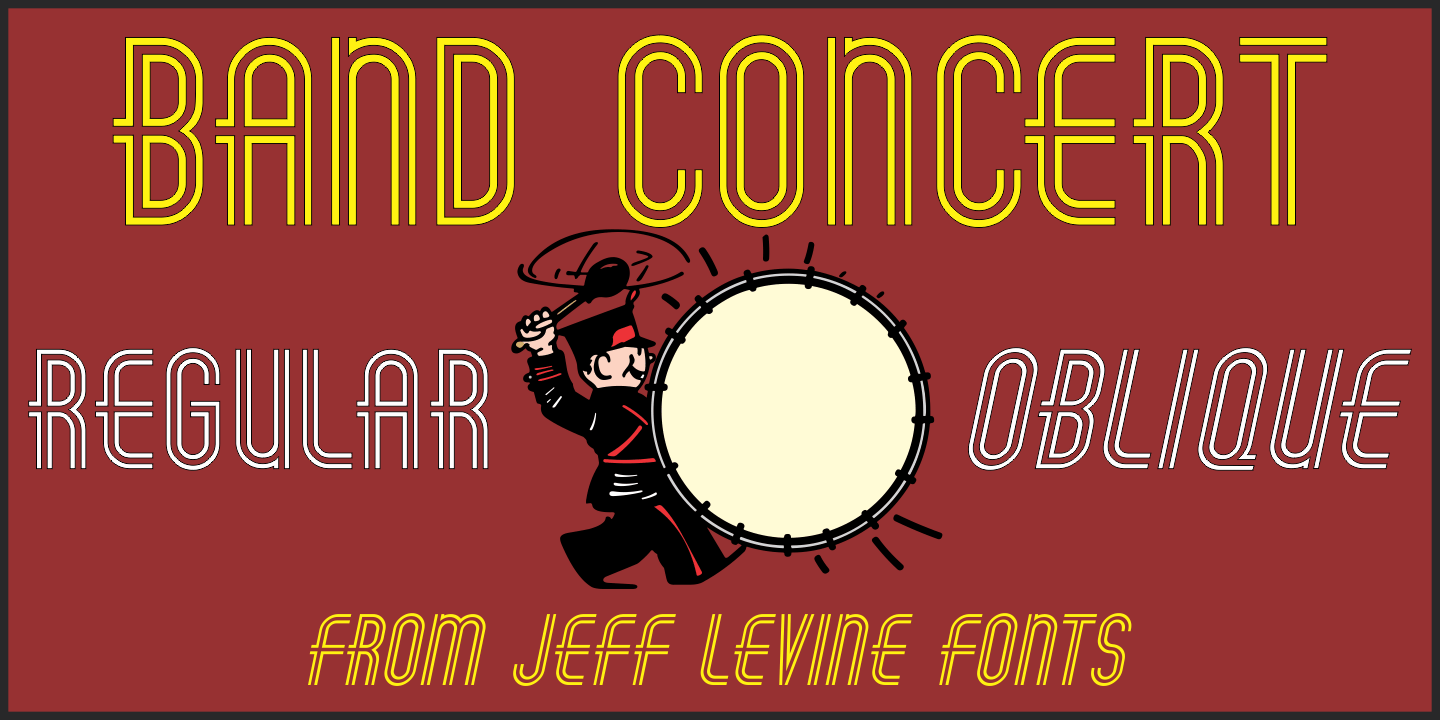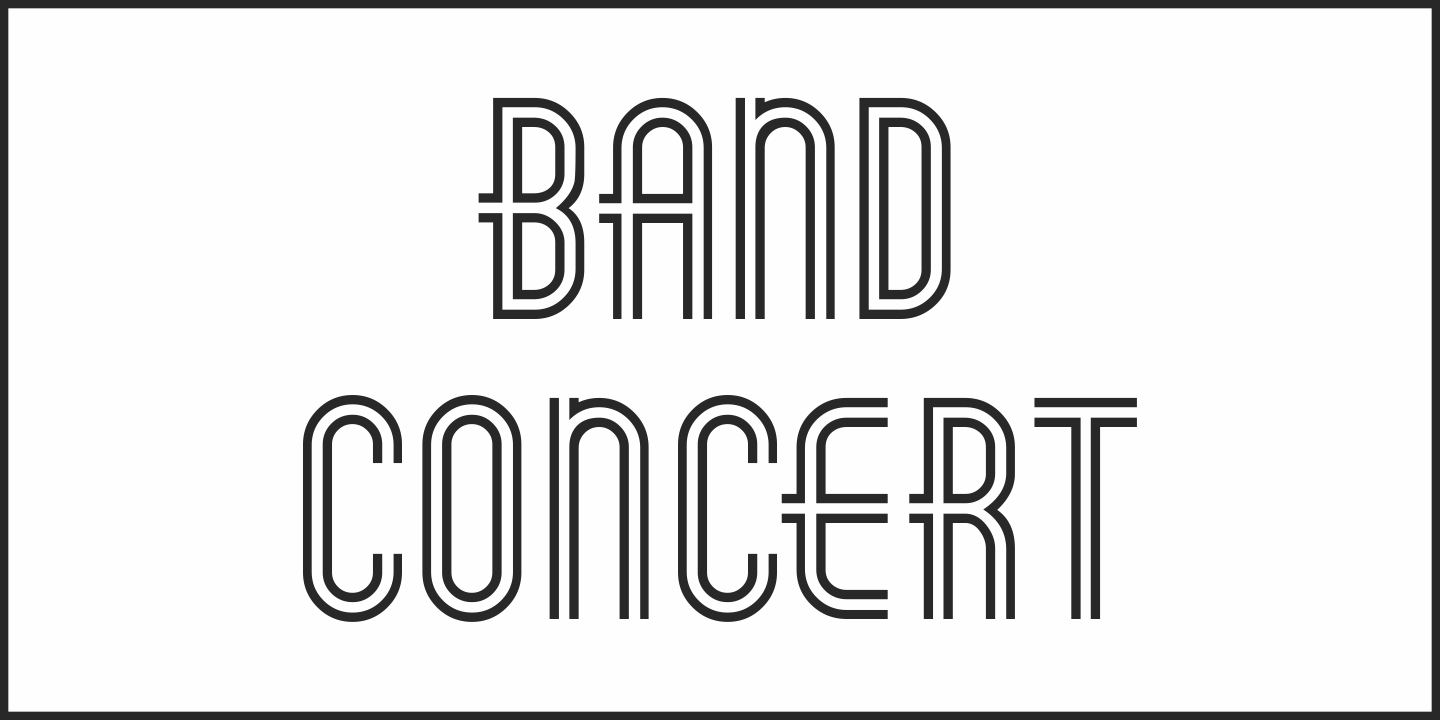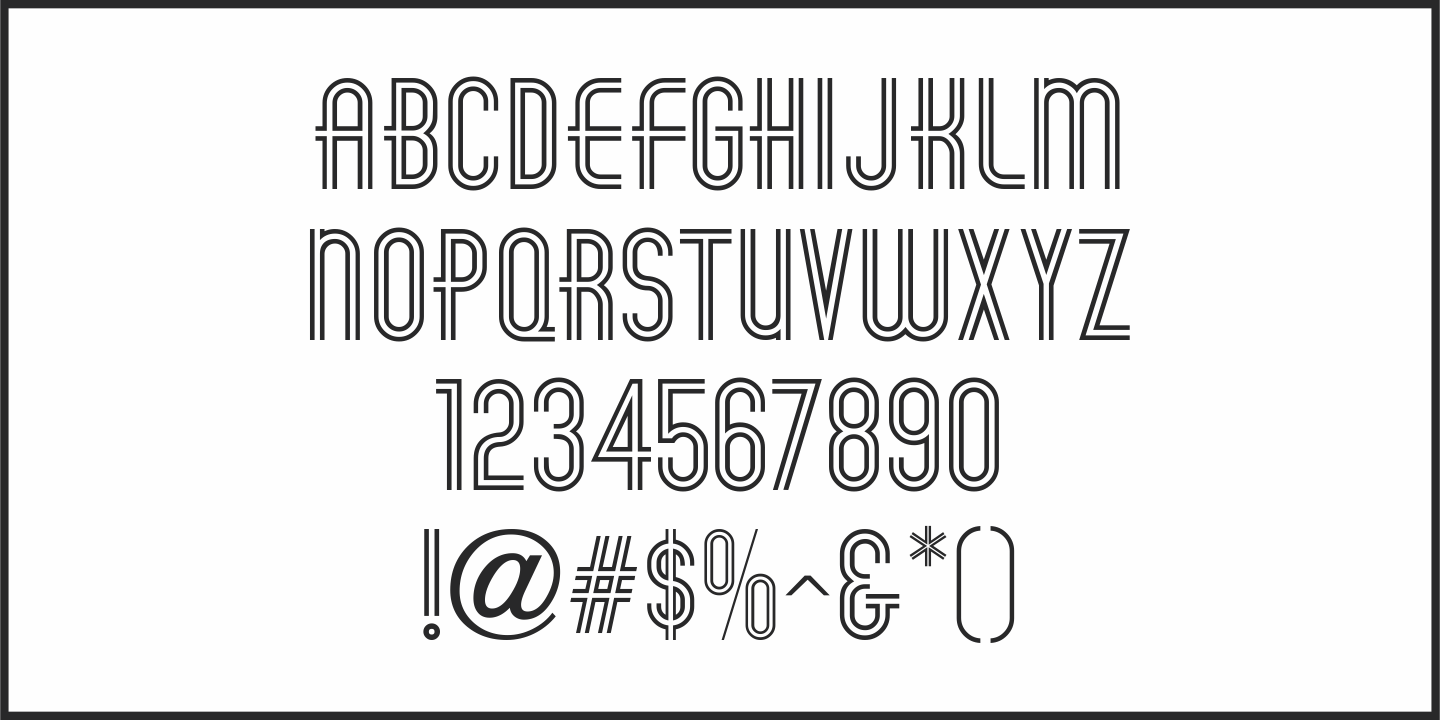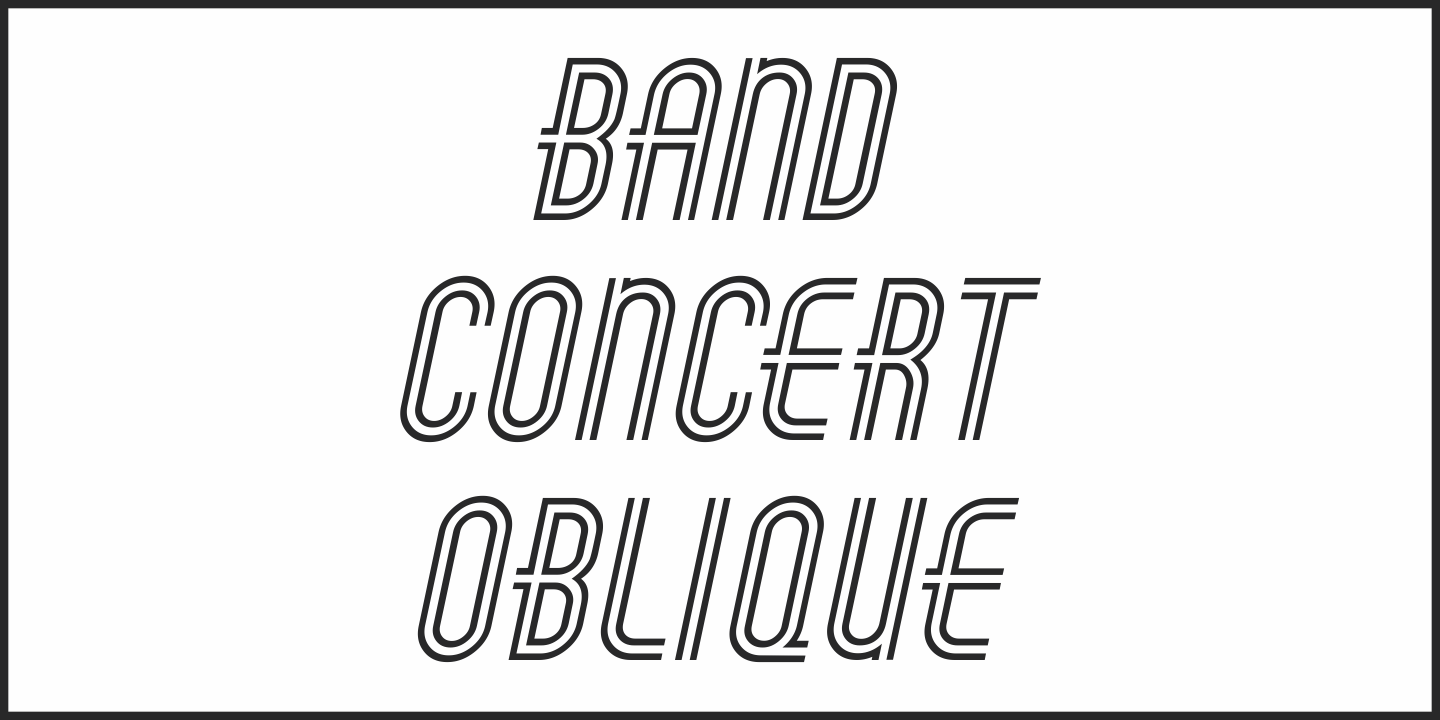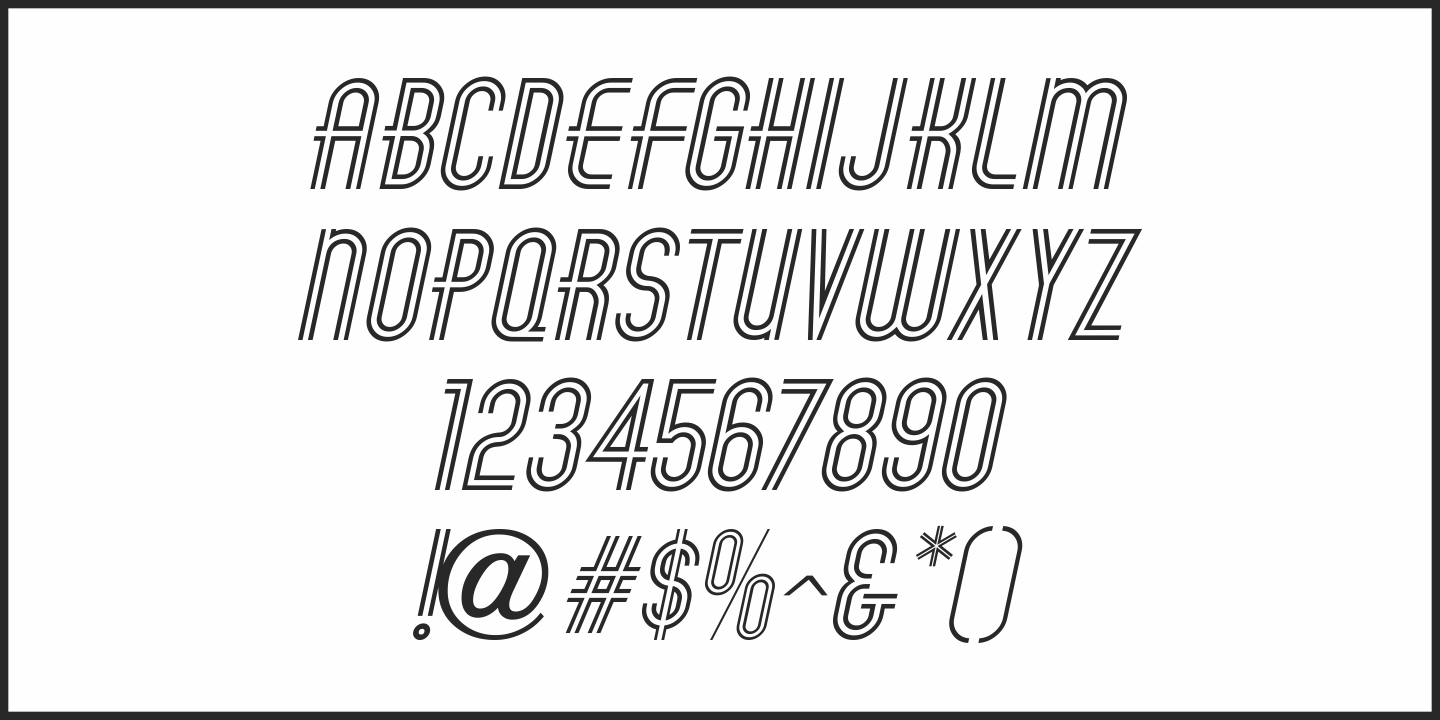
Band Concert
A poster circa 1930s-40s designed for the WPA Federal Art Project promoted free band concerts at the Brooklyn Museum in Brooklyn, New York. Its headline (“Free Band Concerts”) was hand lettered in a dual line Art Deco sans serif design.
Now recreated digitally, the font takes its name after the poster’s topic. Band Concert JNL is available in both regular and oblique versions.